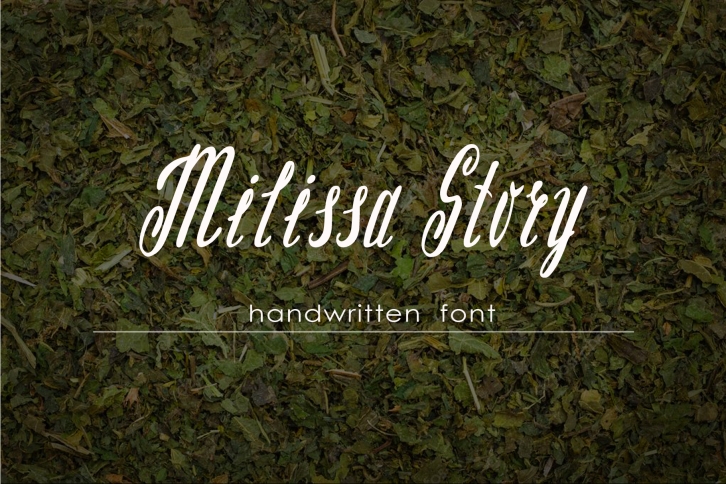
Milissa story script font Download
Milissa story script is a trendy and unique font with an authentic style. It was designed by naum_studio and it's a great choice for creative people who need such a font. It was released on May 15, 2018 and the file size is 18.27 MB. Milissa story script will add an organic vibe to any design idea!